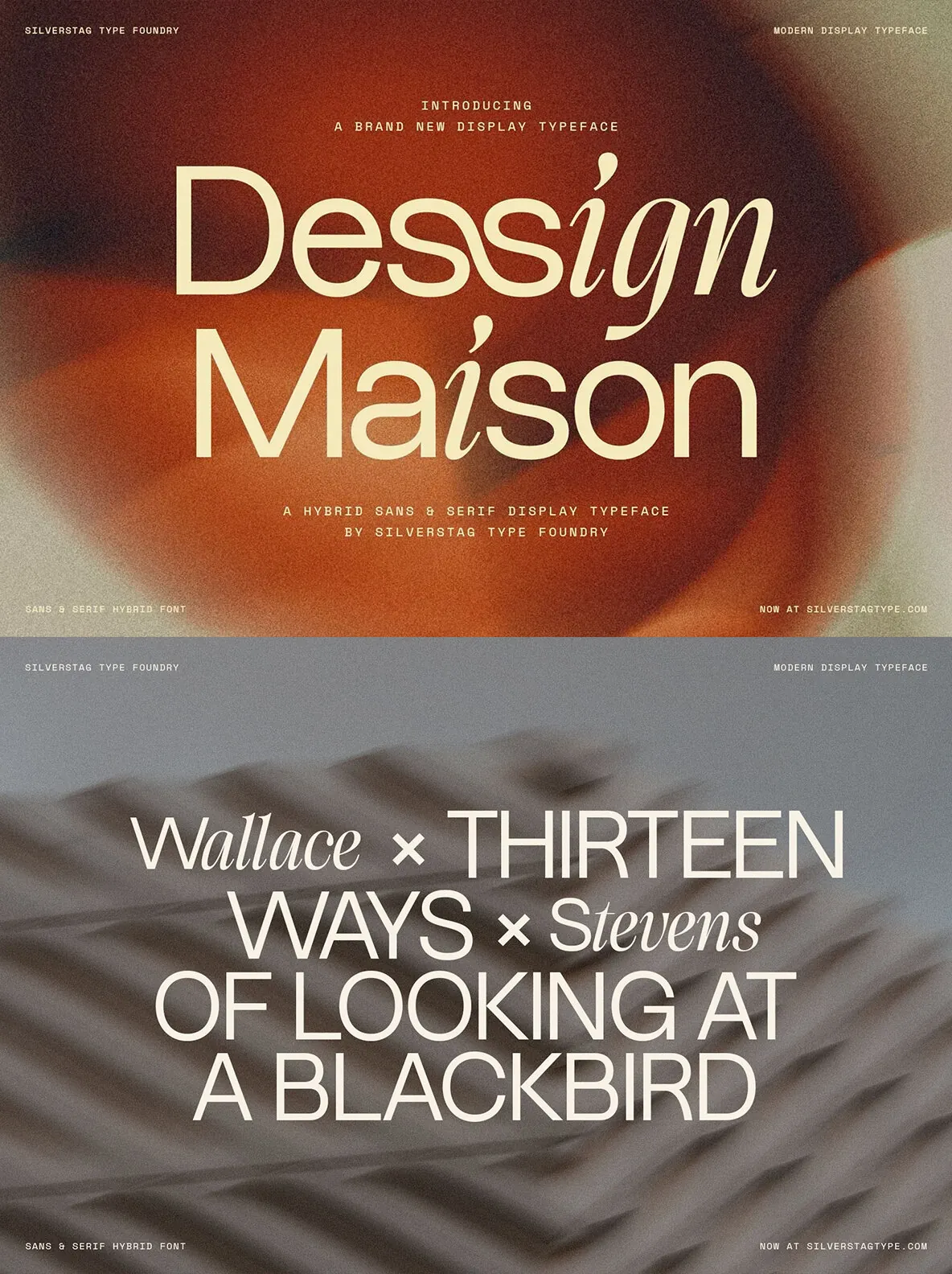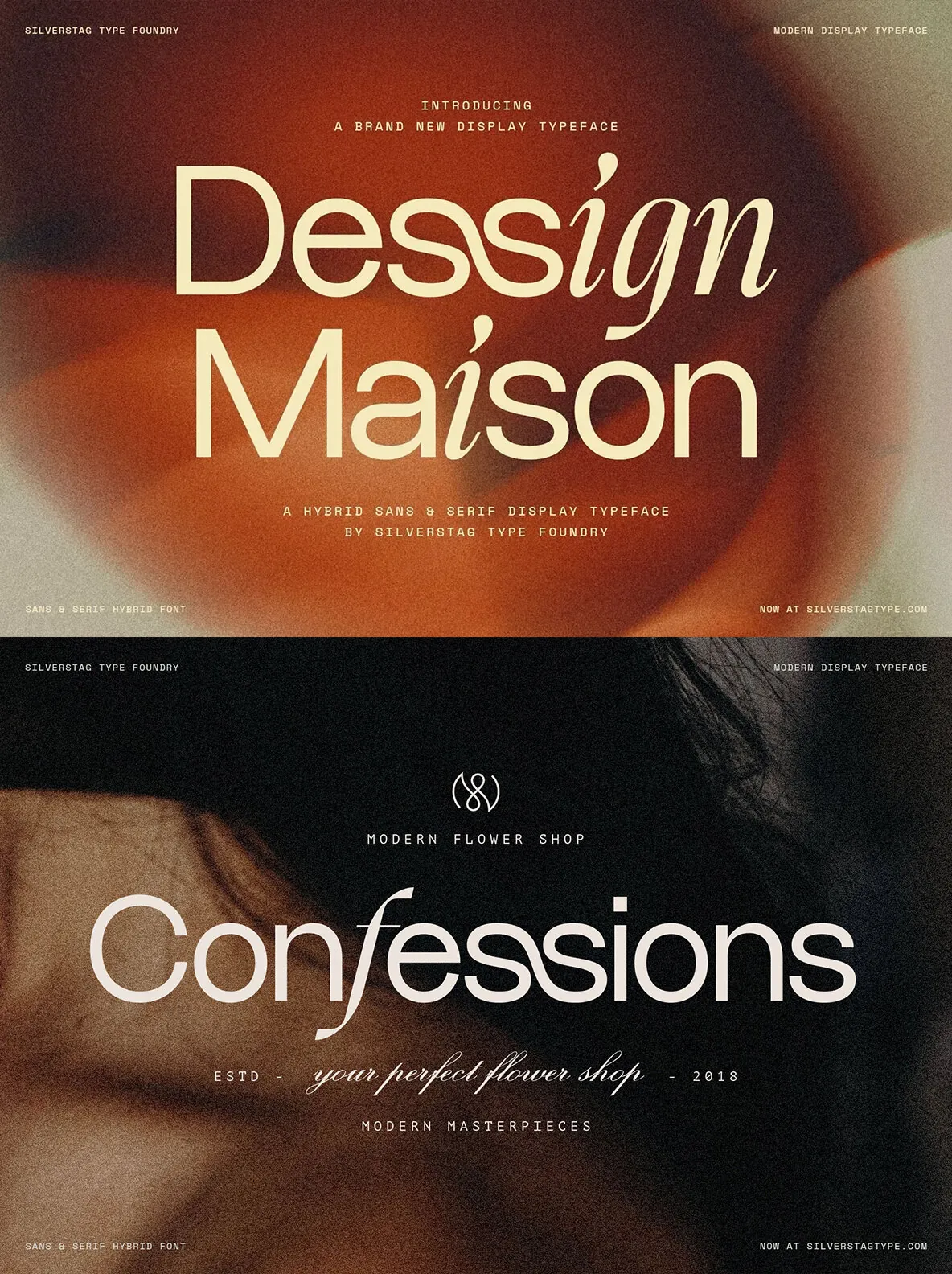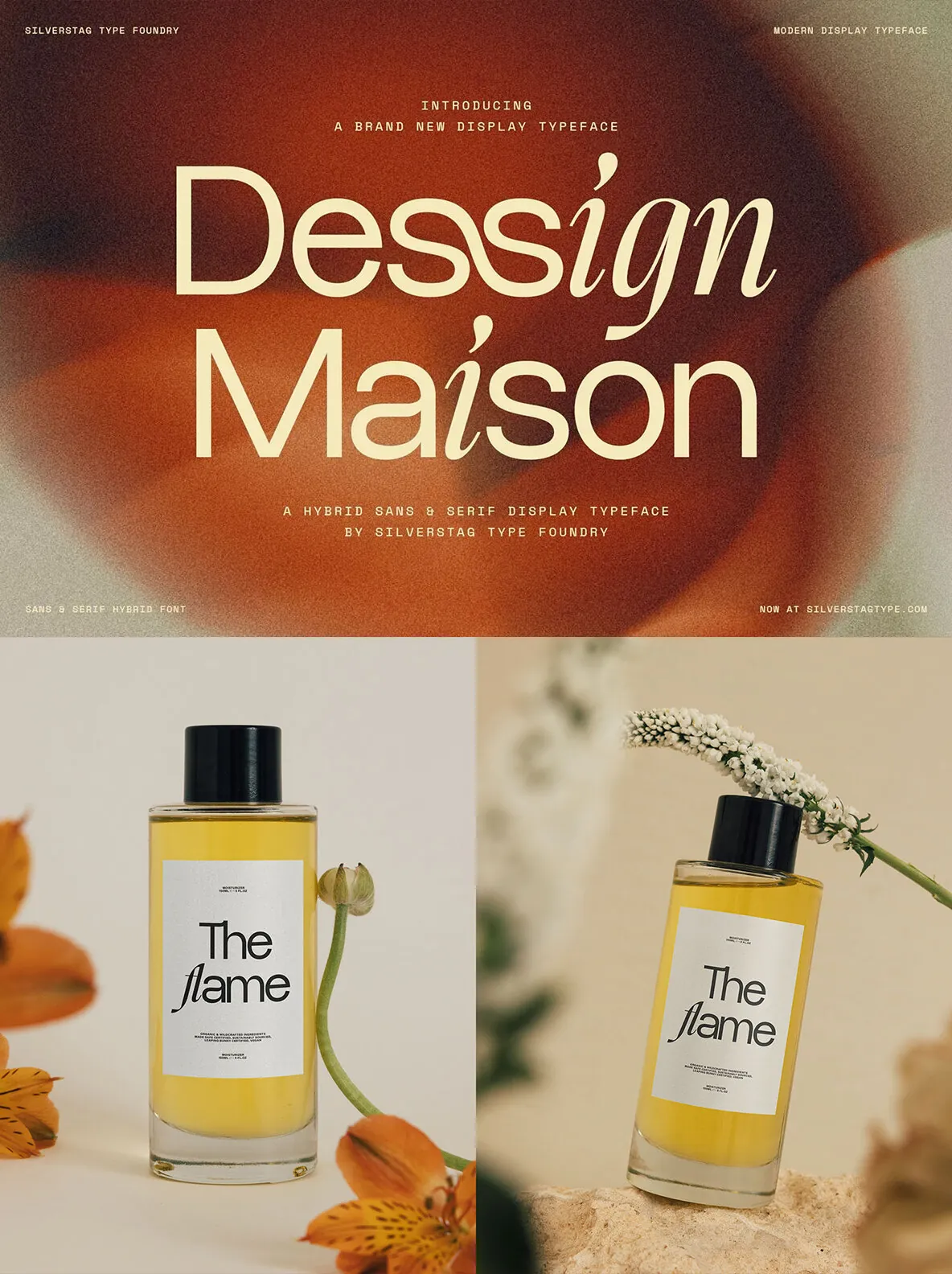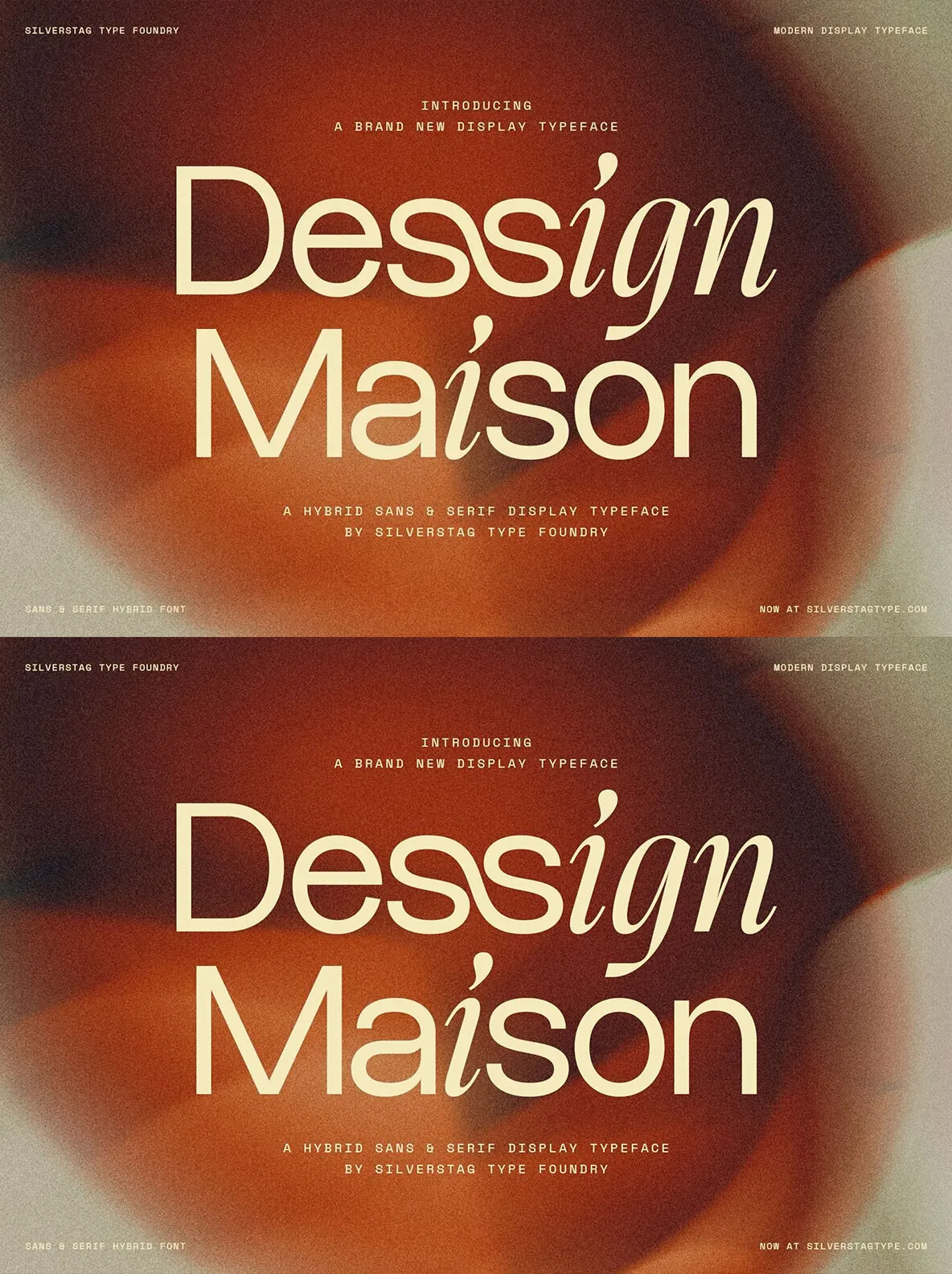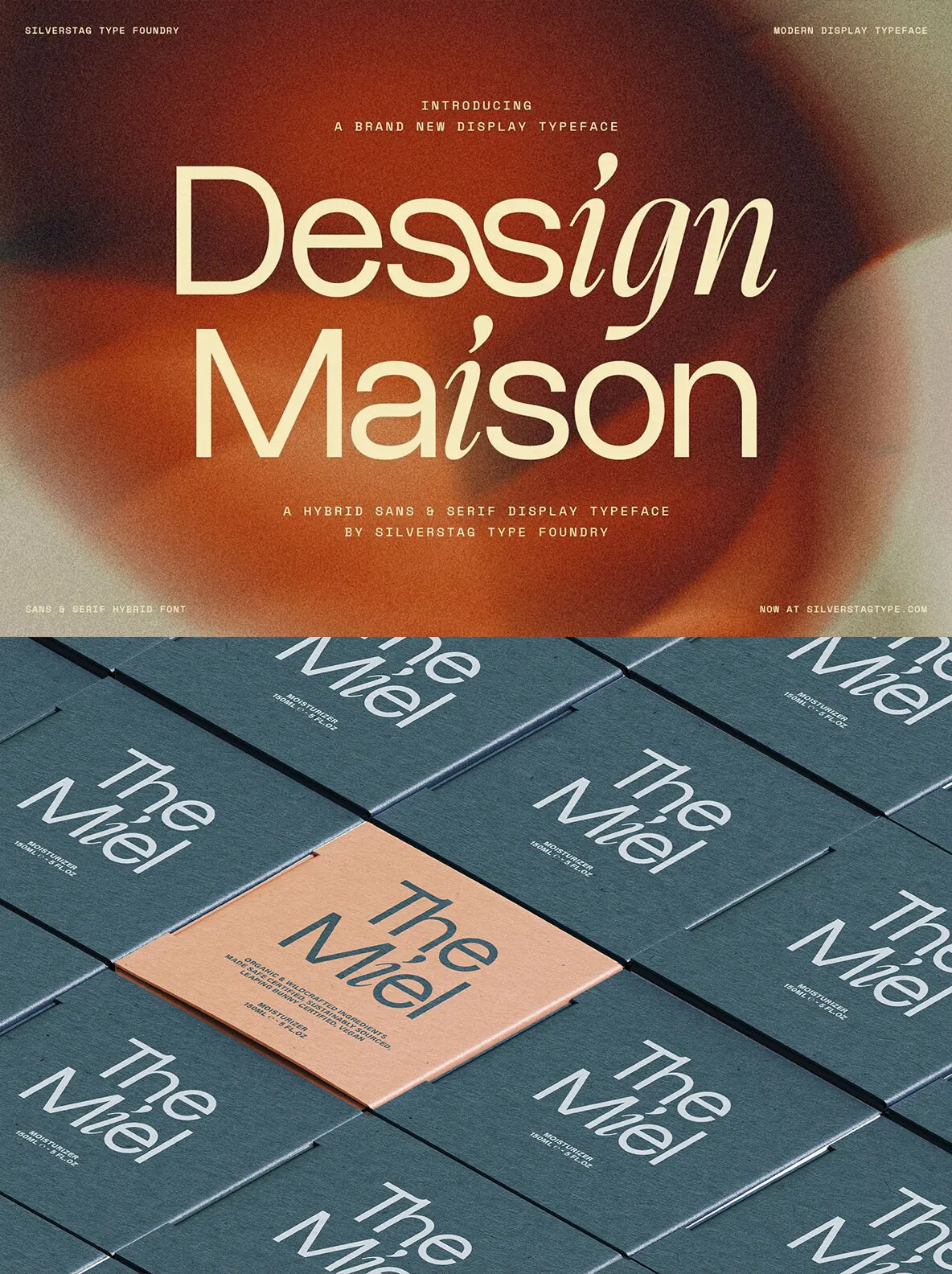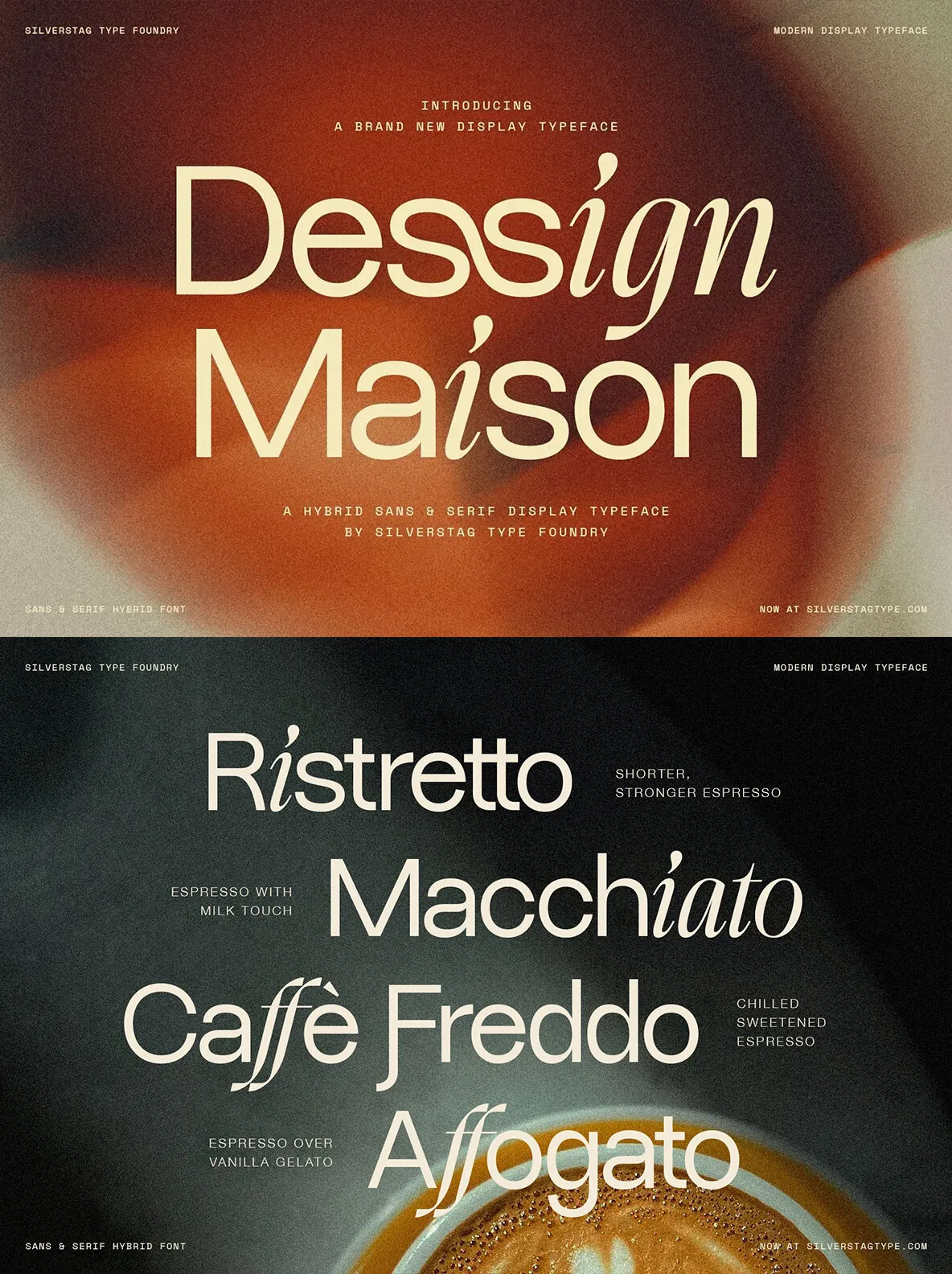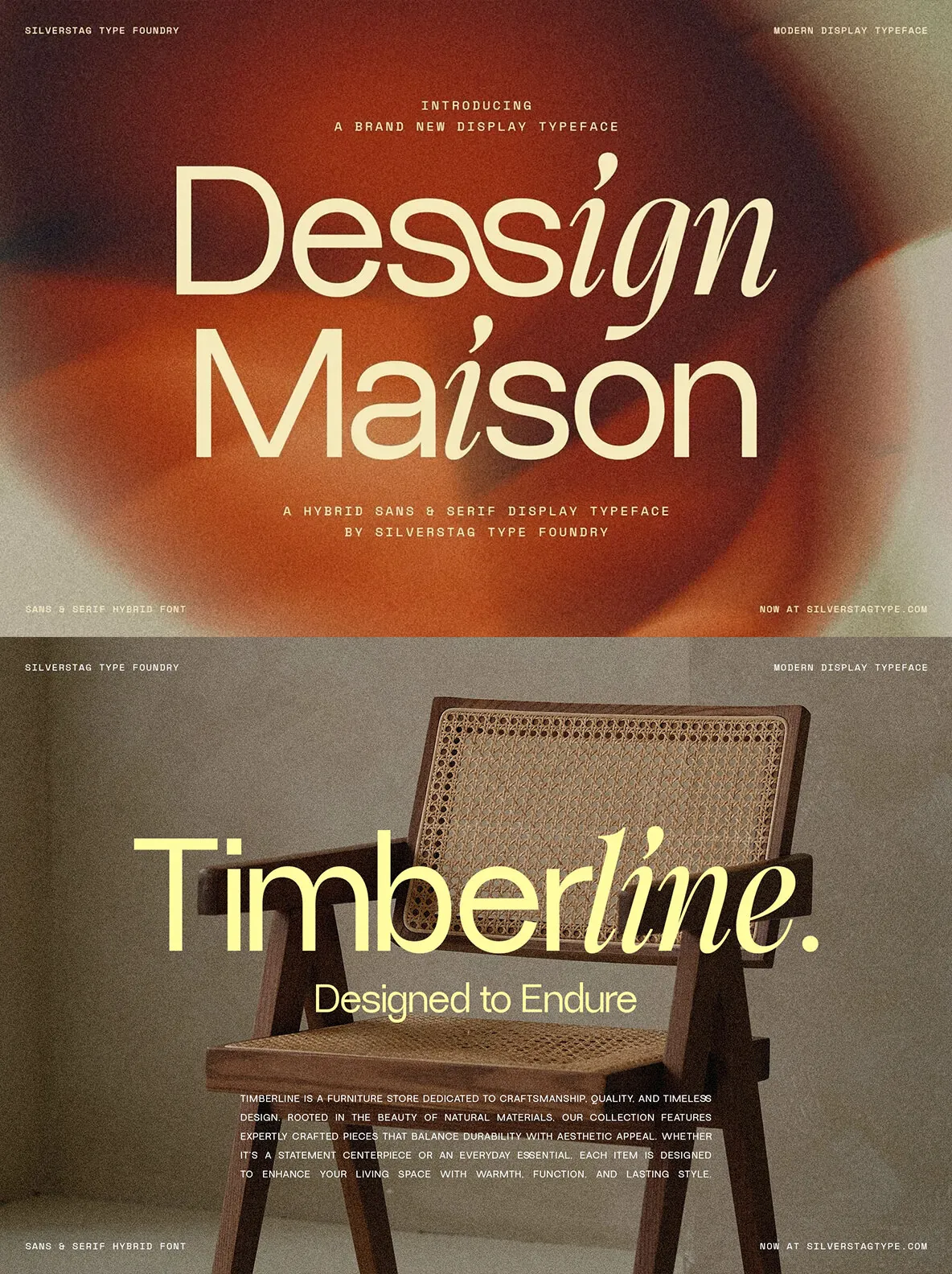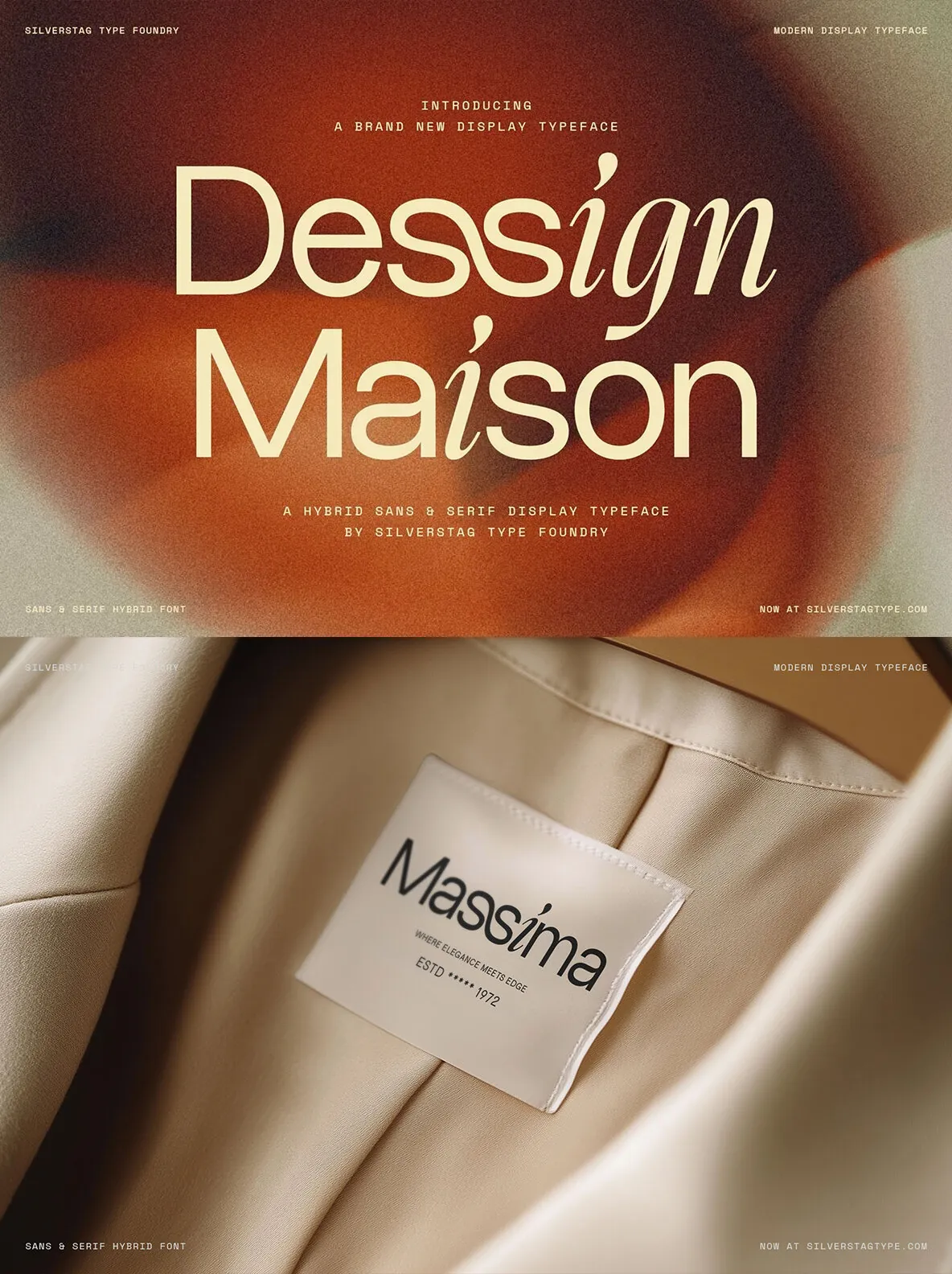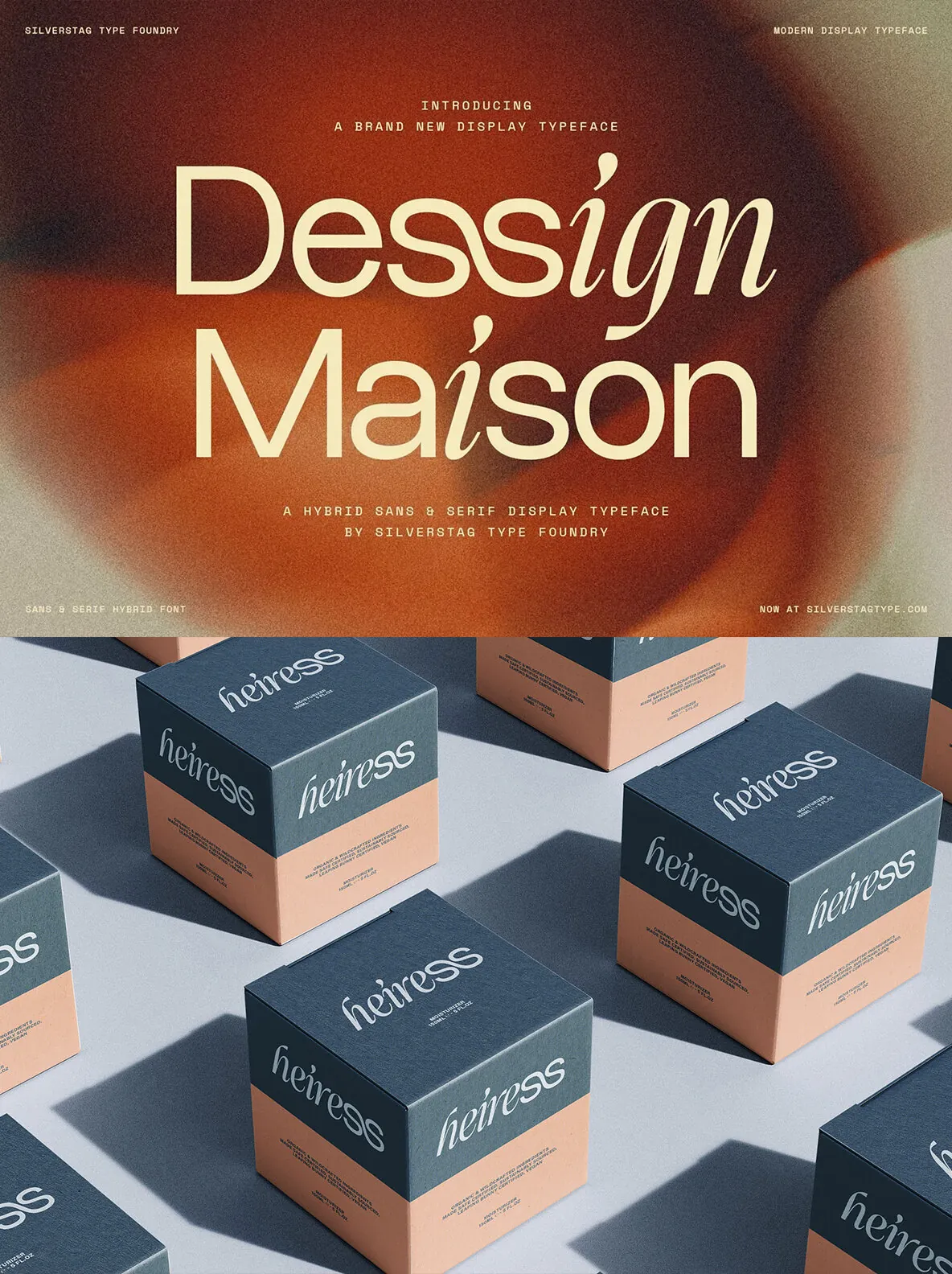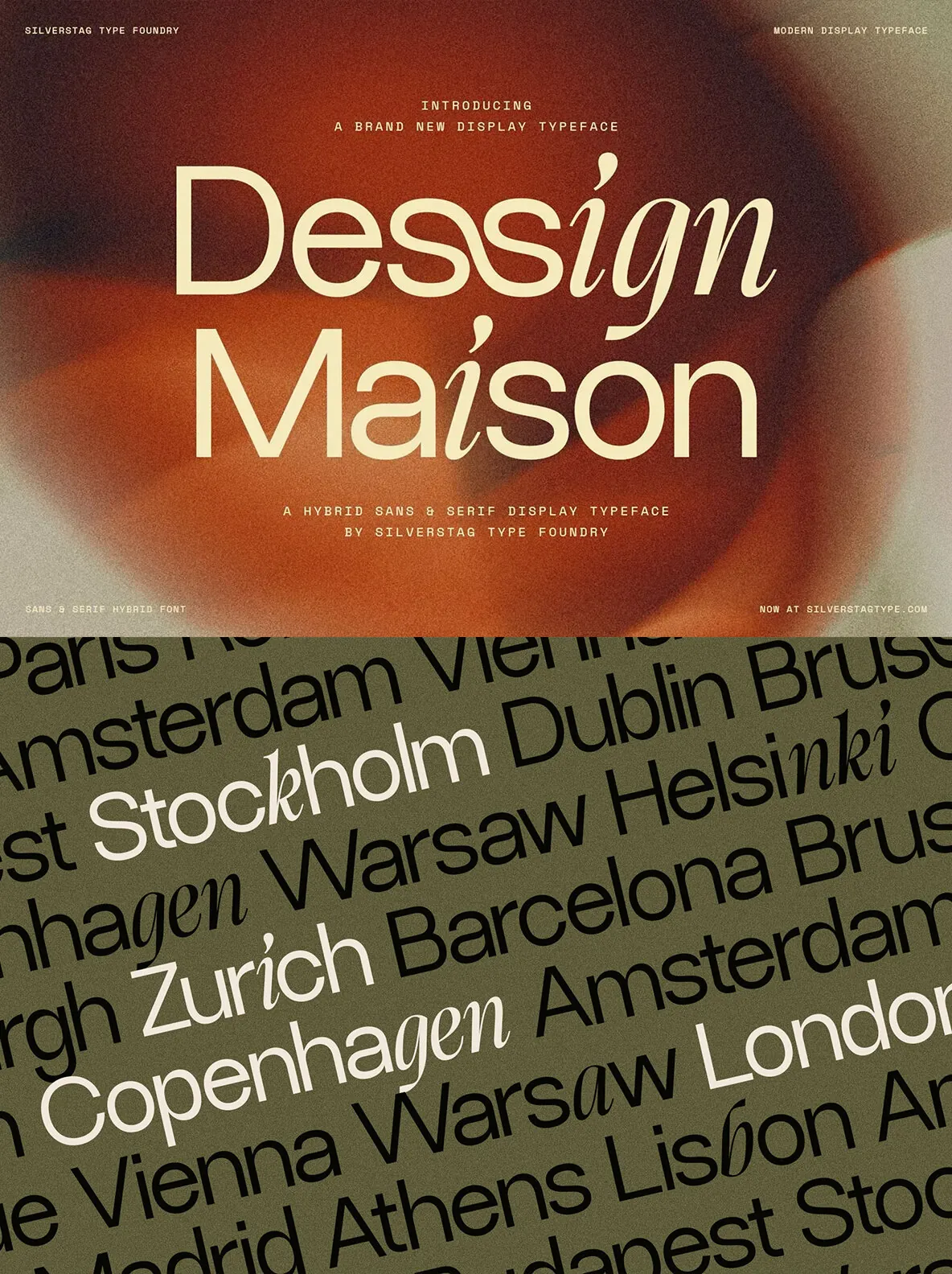
SLTF Dessign Maison — Dual-Voice Display, One Font
One file. Two personalities. Zero compromise.
SLTF Dessign Maison is a hybrid display typeface where geometric sans letterforms and calligraphic strokes coexist within the same font. Not two fonts. Not a paired family. One design where the i carries a teardrop, the f crosses like a calligraphic hand, and the surrounding letters stay clean and geometric—yet the whole system remains cohesive. It reads crisp at a glance, then reveals expressive details on closer look.
The hybrid effect is built into the letterforms themselves. Set a single word and it already does two things at once. That tension—modern and expressive, structured and fluid—fits a wide range of briefs, including fashion brand identities, luxury packaging, editorial mastheads, hospitality branding, food and beverage, and advertising. With Latin Extended coverage, it supports 100+ languages.
Key Features
1 font: Regular
Hybrid letterform system
Geometric sans and calligraphic within single glyphs
OpenType features: stylistic alternates, ligatures
OpenType Features
stylistic alternates
ligatures